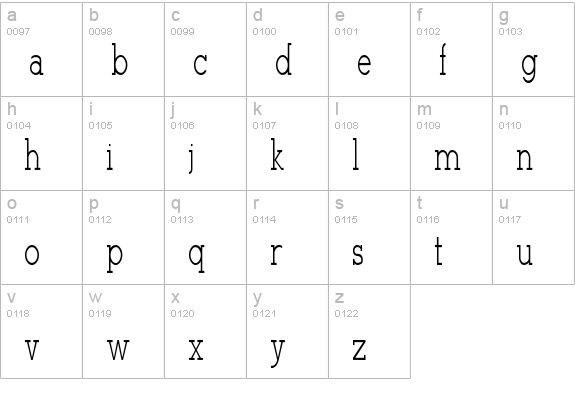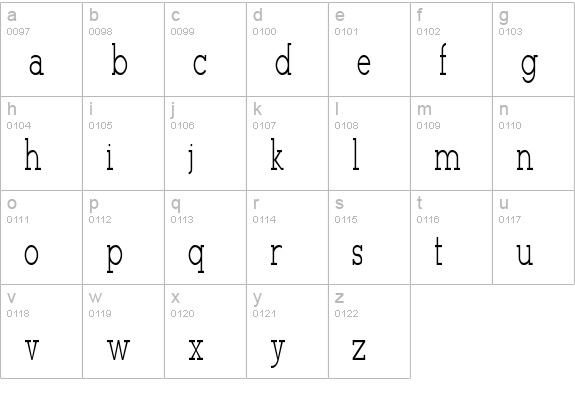
Stymie-Light Font Details
Stymie-Light is a refined, elegant variant in the Stymie typeface family \xE2\x80\x94 well suited to elegant body text, refined sub-headings, and luxury branding.
Stymie-Light font is a sleek and modern typeface that exudes elegance and sophistication. With its clean lines and minimalist design, this font is perfect for creating professional and polished designs. Whether you are working on a branding project, a website design, or a print advertisement, Stymie-Light font will add a touch of refinement to your work. The best part? Stymie-Light font is available for free download at FontsMarket.com. You can easily access this beautiful font and incorporate it into your projects without any cost. Don't miss out on the opportunity to enhance your designs with the timeless appeal of Stymie-Light font. Download it today and elevate your creative projects to the next level.